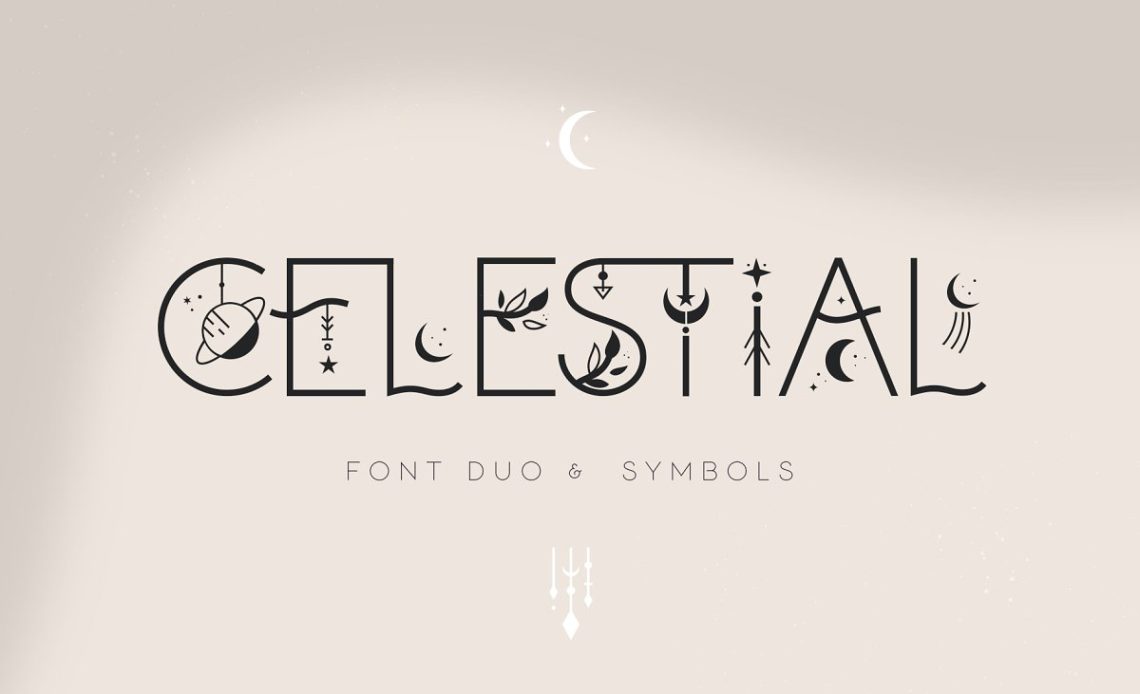
Celestial is not your typical font collection. Created by Olga Zakharova, this modern duo of display uppercase fonts with distinct characters is perfect for those seeking a unique boho style for their designs. Inspired by mystery and astrology, Celestial includes both decorative and clean versions of the font, along with additional illustrations that you can use as pictures or as a font.
If you're looking for a font that is perfect for holiday invitations, product packaging, stationery, logos, branding, or blog design, then Celestial is the perfect choice for you. The decorative version of the font includes two variations of letters, making it easy to use - simply use lowercase for the first set and uppercase for the second.
What's more, Celestial is designed with wedding invitations in mind. It is the perfect font for those who want to elevate their invitations and create a lasting impression on their guests. With its elegant and boho style, Celestial is sure to impress even the most discerning of guests.